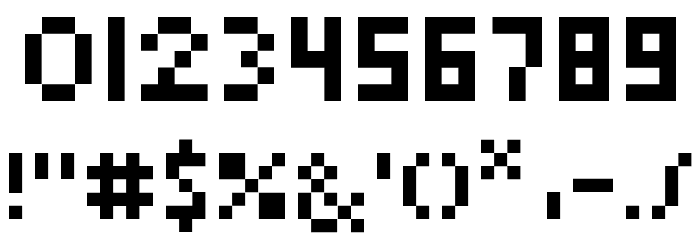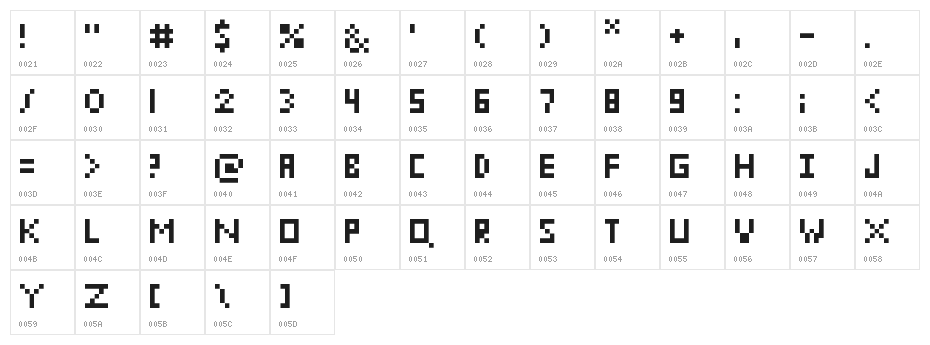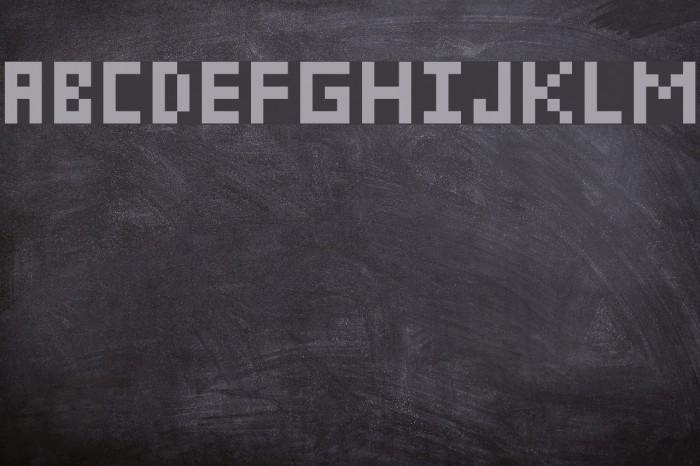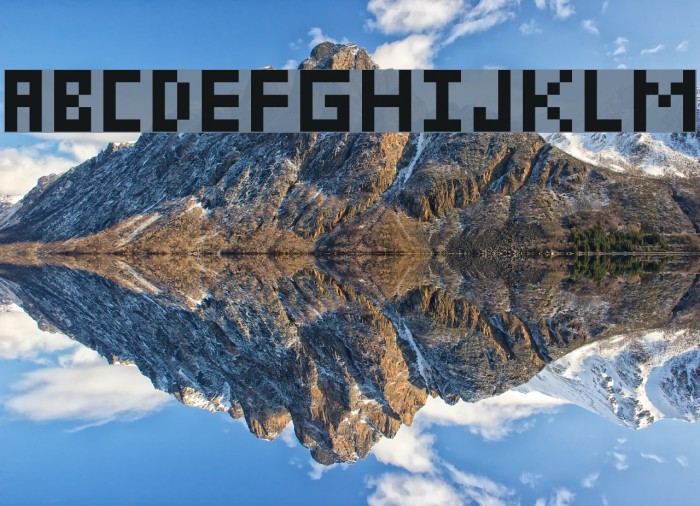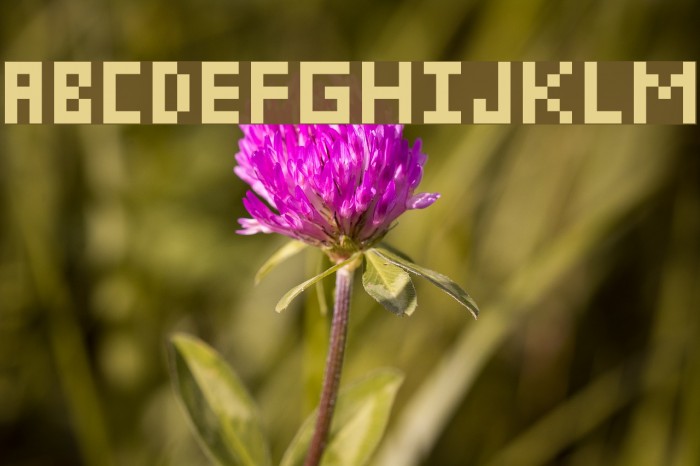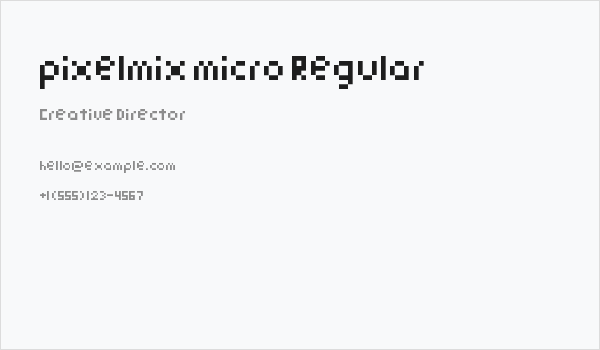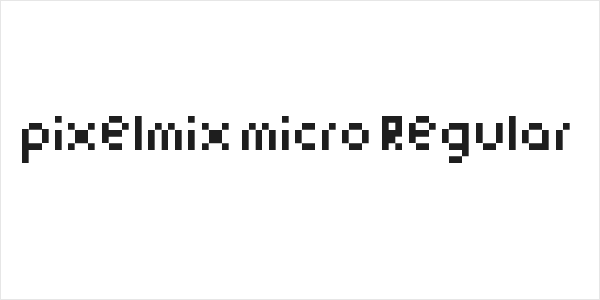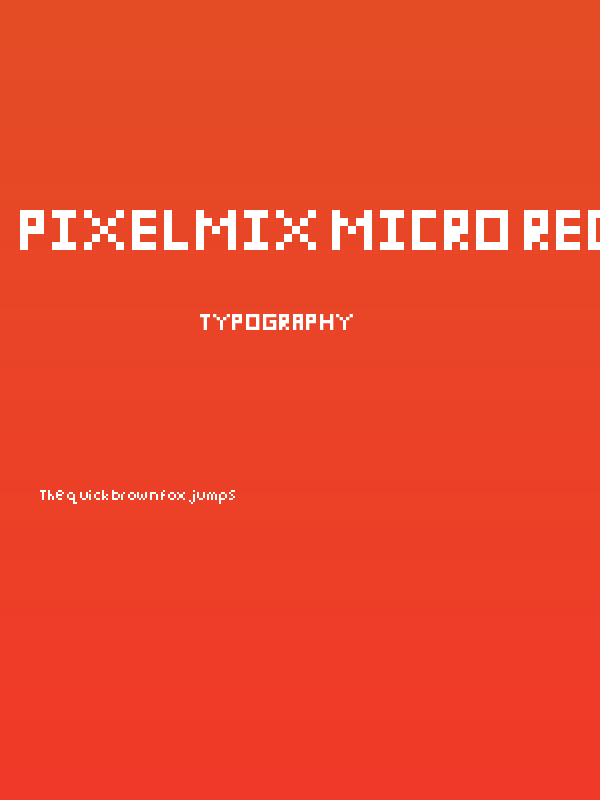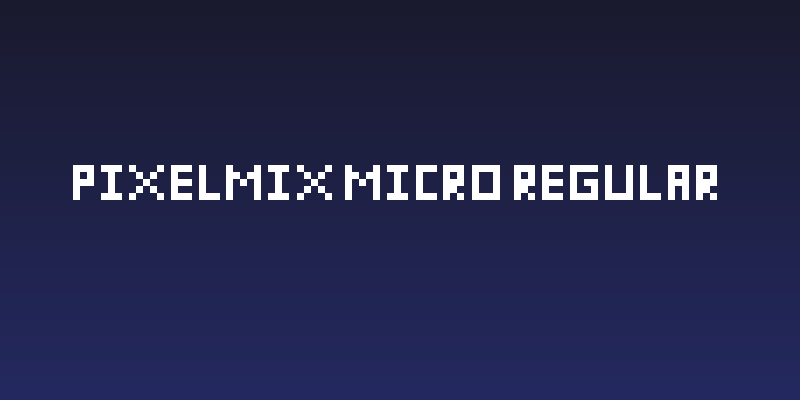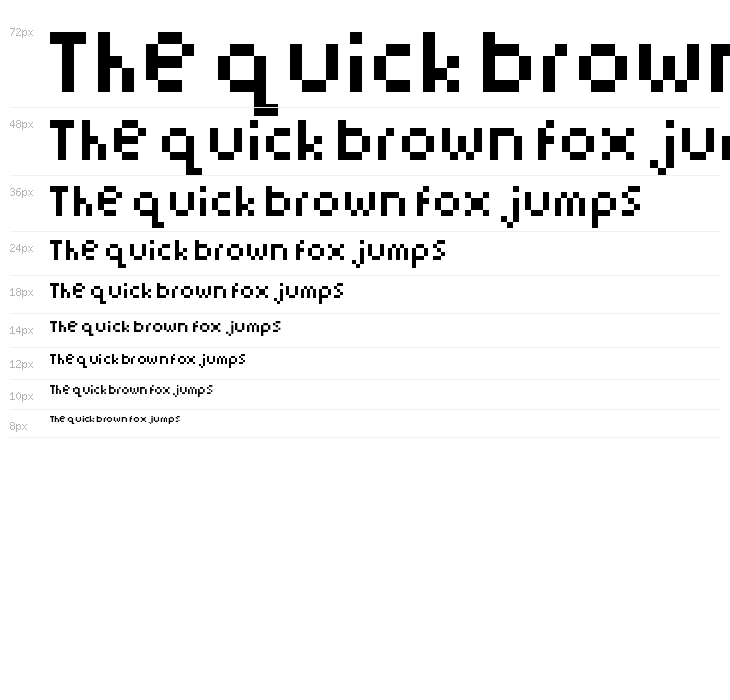
pixelmix micro Regular Font
pixelmix micro Regular Description
This font features a pixelated, blocky design reminiscent of early digital displays and retro video games. Each character is constructed with a grid-like precision, giving it a distinctly digital and nostalgic feel. The uppercase and lowercase letters maintain a consistent height, enhancing the uniformity and readability of the text. Numbers and special characters follow the same pixelated style, ensuring a cohesive look across all elements. The simplicity and clarity of this font make it ideal for projects that aim to evoke a sense of nostalgia or a retro digital aesthetic.
| Use Case | Logos, Headlines, Digital displays |
| Proposed Projects | Ideal for retro video game designs, digital art projects, and nostalgic branding. |